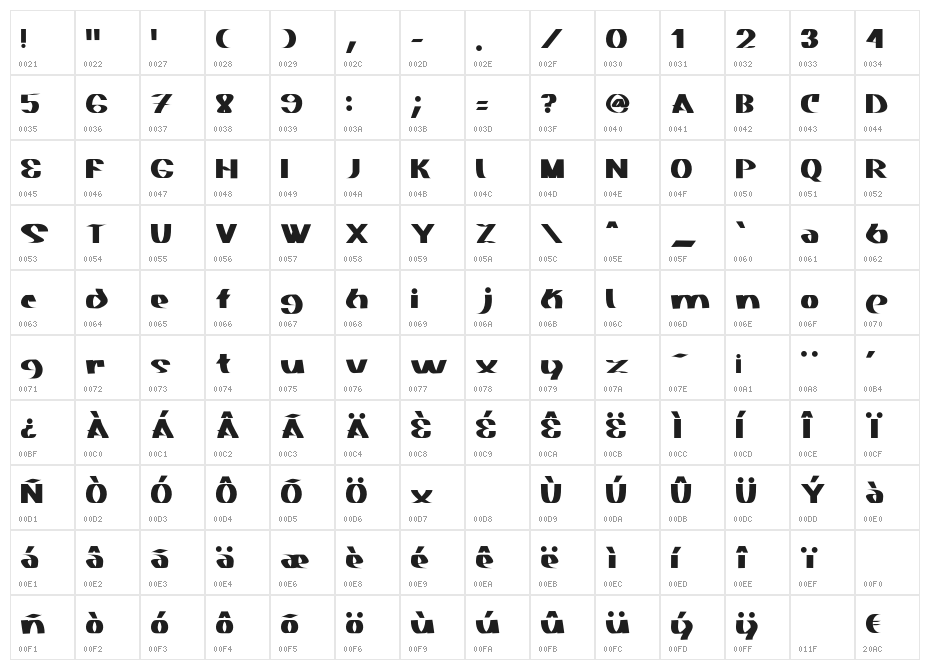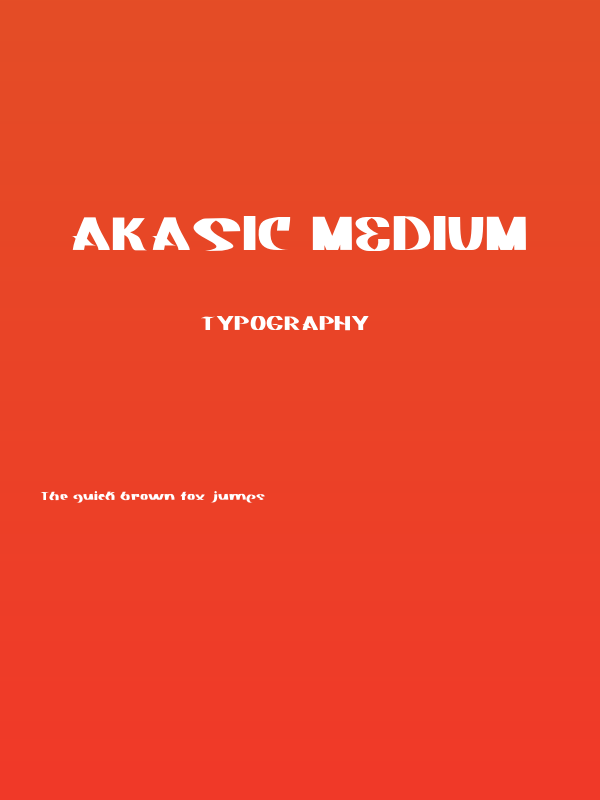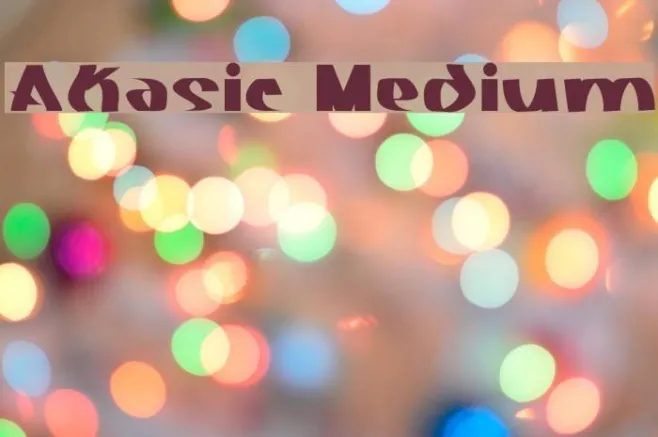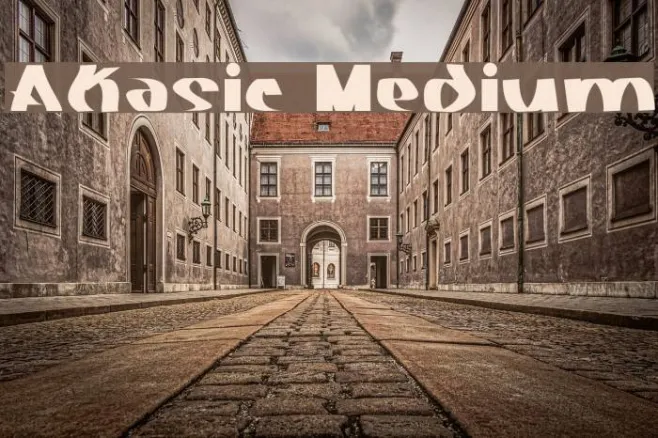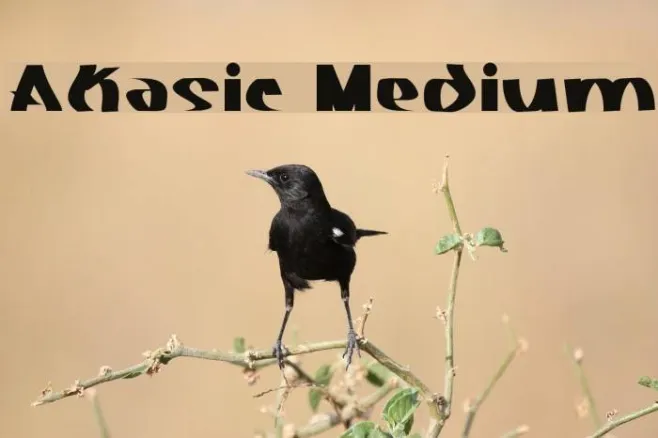
Akasic Medium Font
Akasic Medium Description
This font features a bold and dynamic design with a strong presence. The characters are crafted with unique cutouts and angular shapes, giving it a modern and edgy appearance. The uppercase letters are particularly striking, with a sense of movement and energy. The lowercase letters maintain the same boldness, ensuring consistency throughout the typeface. Numbers and special characters follow the same stylistic approach, making the font versatile for various design needs. The overall aesthetic is both futuristic and artistic, suitable for projects that require a standout typeface.
| Proposed Projects | Ideal for branding, posters, album covers, and any project needing a bold, modern statement. |